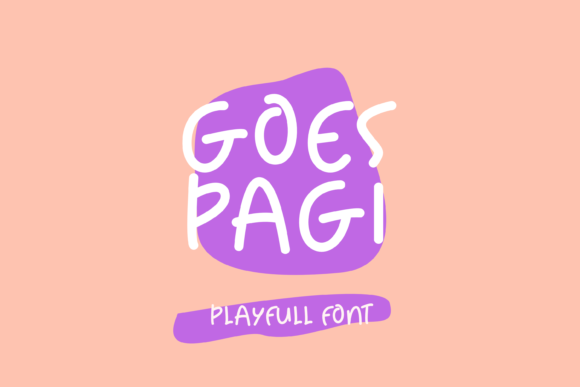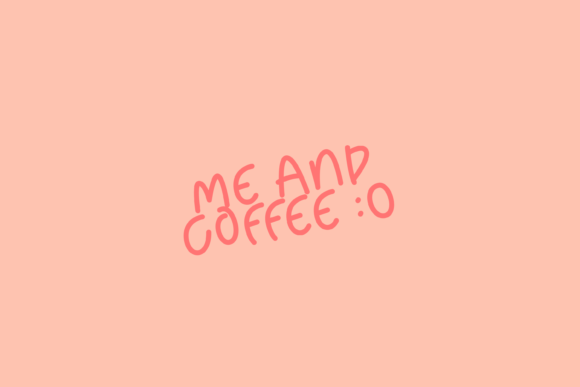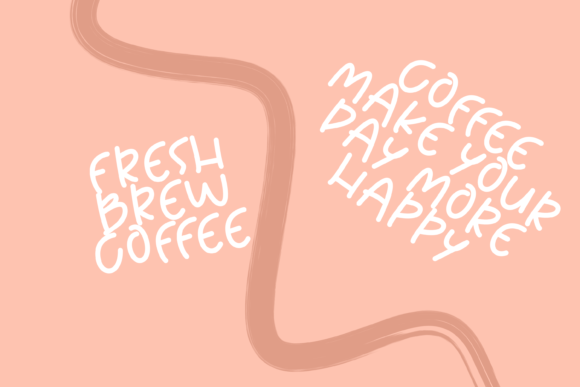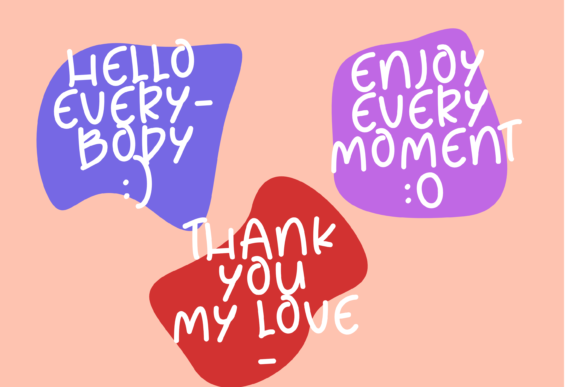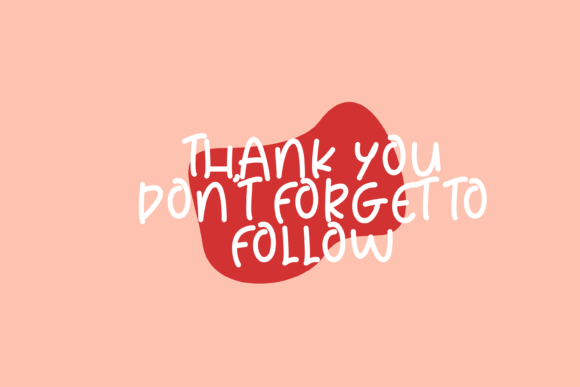
Goes Pagi Font
About Goes Pagi Font
Goes Pagi is a cute, informal and quirky handwritten font. This original look will appeal to a wide range of crafty ideas, from letterheads and titles, to stationery.